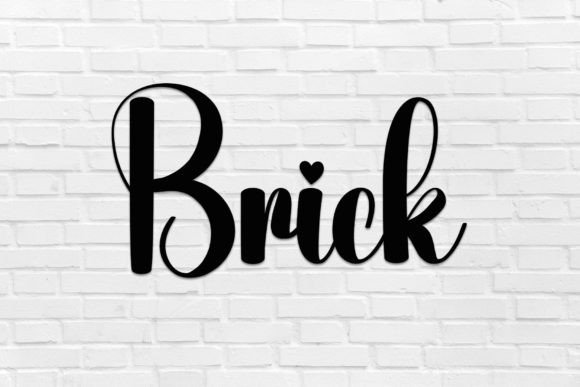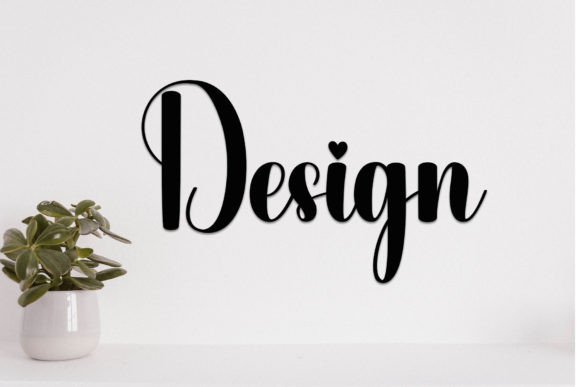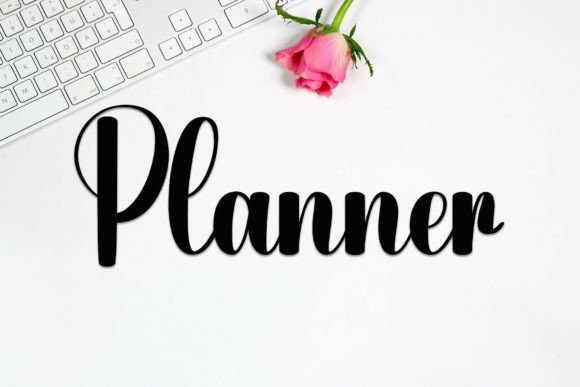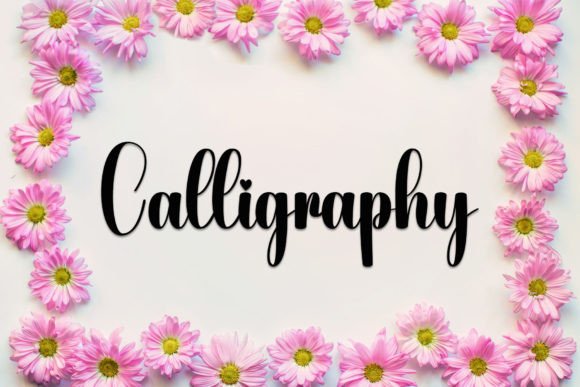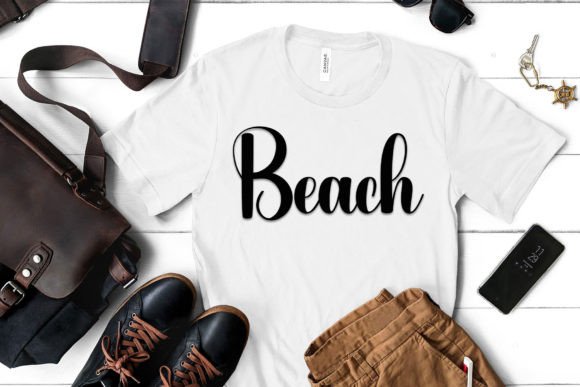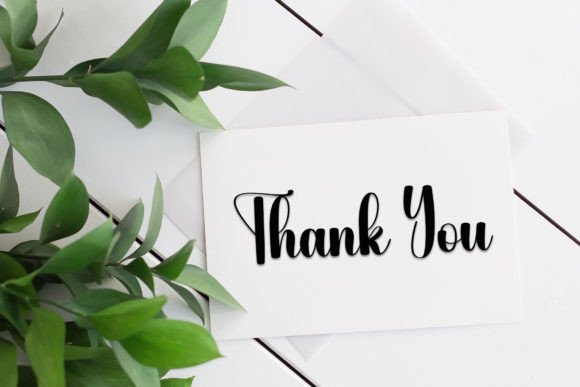
Introducing Architect Font: Elevate Your Designs with Elegance
Are you on the hunt for a font that exudes sophistication and style? Look no further than Architect Font, a stunning handwritten font that is sure to capture your heart. With its elegant touch and timeless appeal, Architect Font is the perfect addition to your design arsenal.
The Beauty of Architect Font
Architect Font is a neat and beautiful handwritten font that boasts an incredibly distinct style. Its elegant touch is perfect for a wide range of projects, from branding and advertising to packaging and digital designs. The font’s unique charm lies in its ability to convey a sense of sophistication and luxury, making it an ideal choice for designers who want to create high-end designs.
What Makes Architect Font Stand Out?
So, what sets Architect Font apart from other fonts? Here are a few key features that make it a standout:
- Elegant Touch: Architect Font has a smooth, flowing quality that gives it an elegant and refined feel.
- Timeless Style: Unlike trendy fonts that quickly go out of style, Architect Font has a timeless appeal that ensures your designs will remain stylish for years to come.
- Distinctive Character: Architect Font has a unique character that sets it apart from other fonts. Its distinctive style makes it perfect for designers who want to create memorable and impactful designs.
Architect Font is versatile and can be used for a wide range of projects, including:
- Branding and Advertising: Use Architect Font to create stunning logos, business cards, and ad campaigns that exude sophistication and style.
- Packaging Design: Add a touch of elegance to your packaging designs with Architect Font. Perfect for luxury brands, cosmetics, and high-end products.
- Digital Designs: Use Architect Font to create beautiful website headers, social media graphics, and digital ads that capture your audience’s attention.
Tips for Using Architect Font
Here are a few tips for getting the most out of Architect Font:
- Pair it with a Sans-Serif Font: Pair Architect Font with a clean sans-serif font to create a beautiful contrast that adds visual interest to your designs.
- Experiment with Colors: Architect Font looks stunning in a range of colors. Experiment with different hues and shades to find the perfect combination for your design.
- Use it for Headings and Titles: Architect Font is perfect for headings and titles. Use it to create stunning headlines that grab attention and draw your audience in.
Architect Font is a beautiful and elegant handwritten font that is sure to elevate your designs. With its timeless style and distinctive character, it’s the perfect choice for designers who want to create sophisticated and stylish designs. Whether you’re working on a branding project, packaging design, or digital design, Architect Font is sure to impress. So why wait? Fall in love with Architect Font and start creating spectacular designs today!